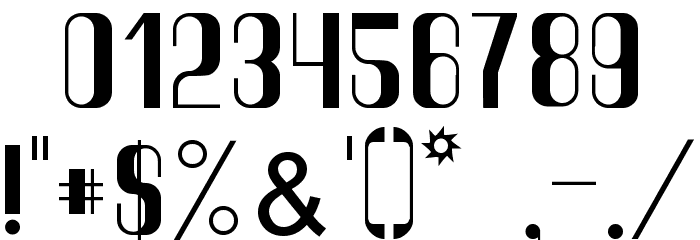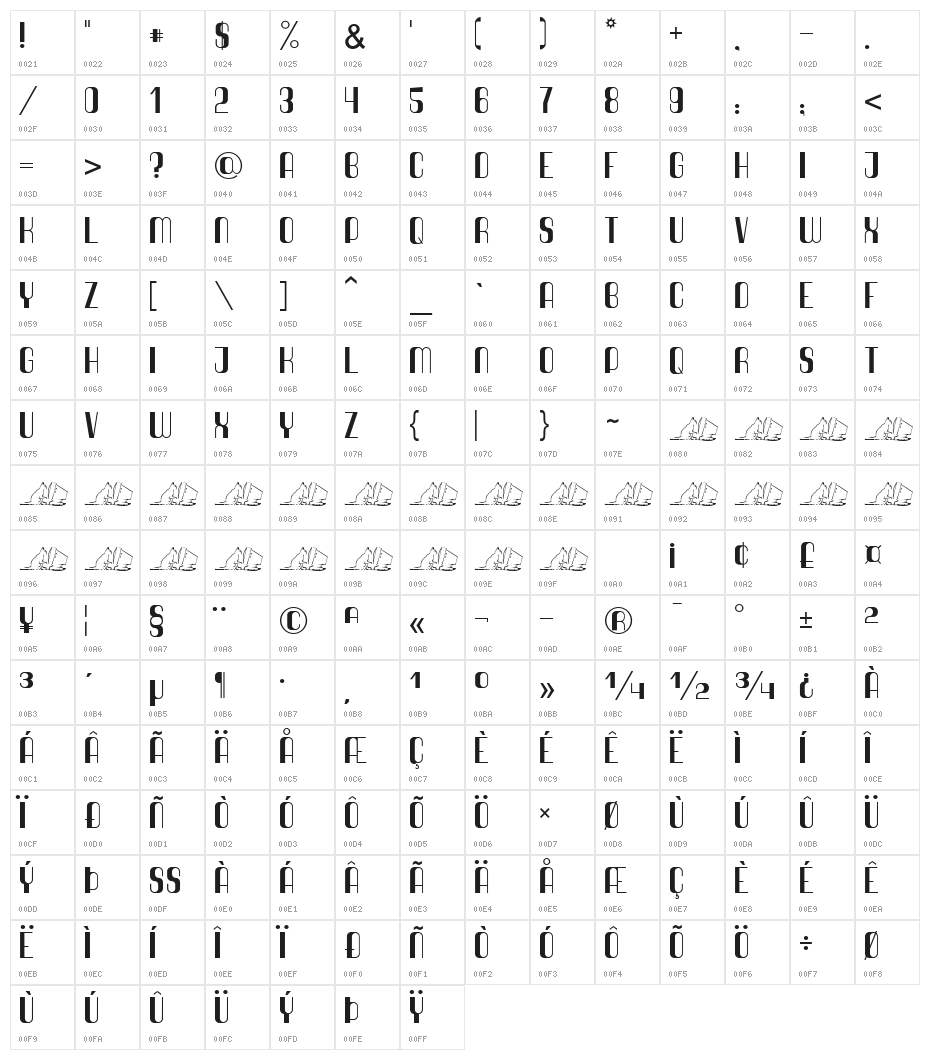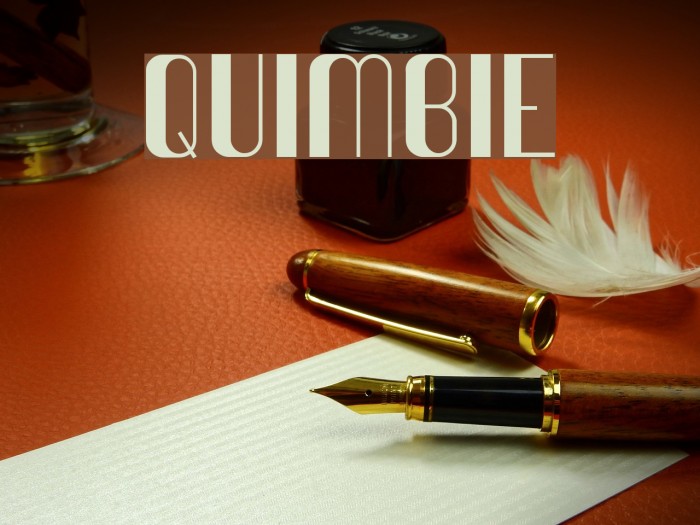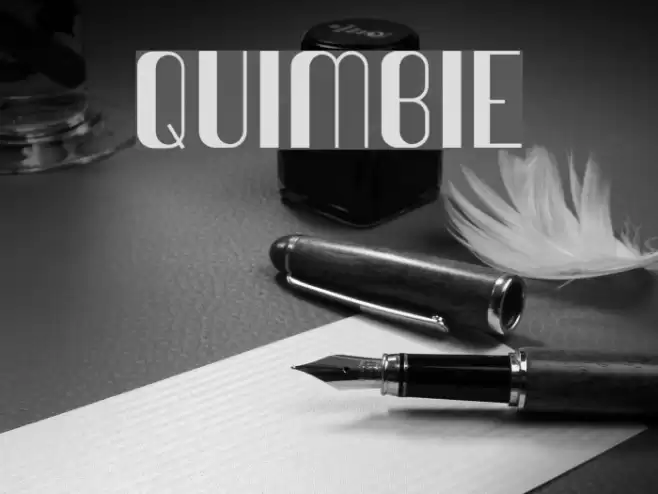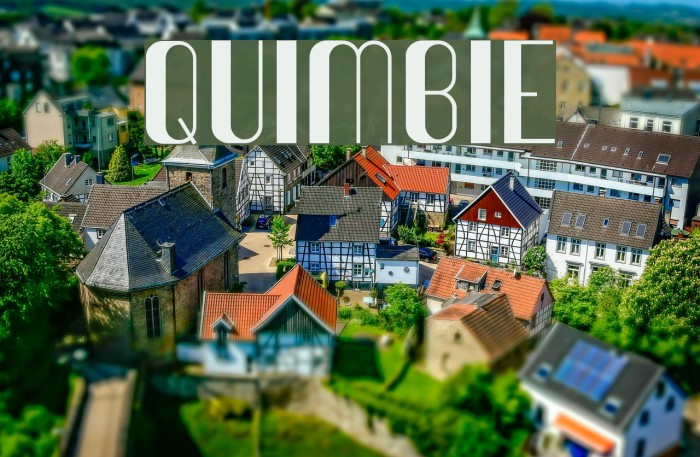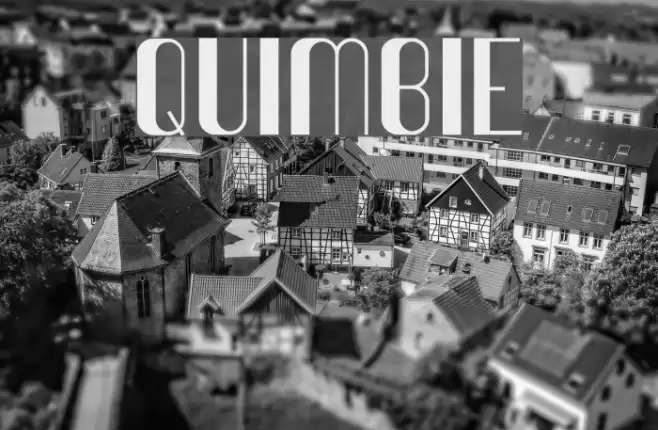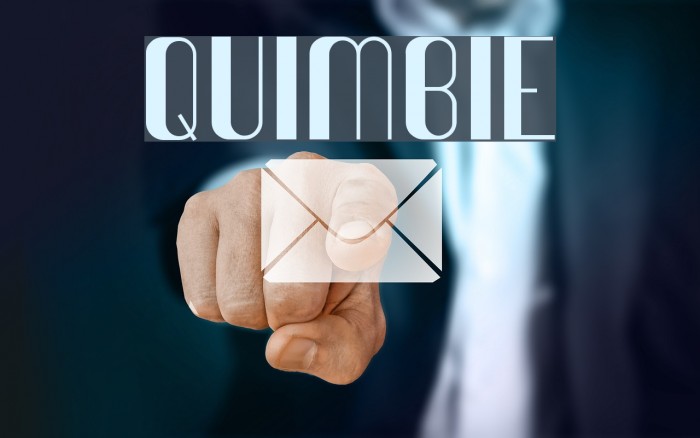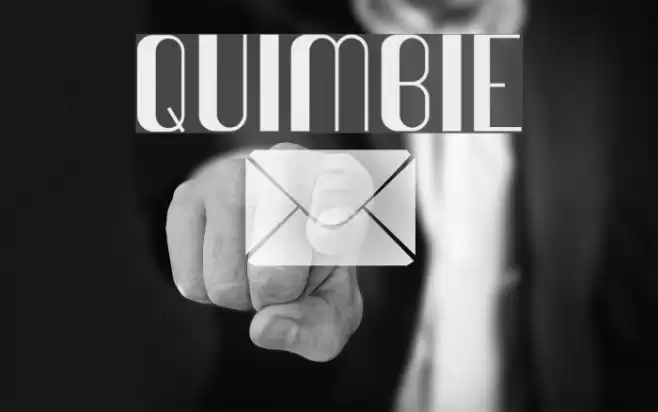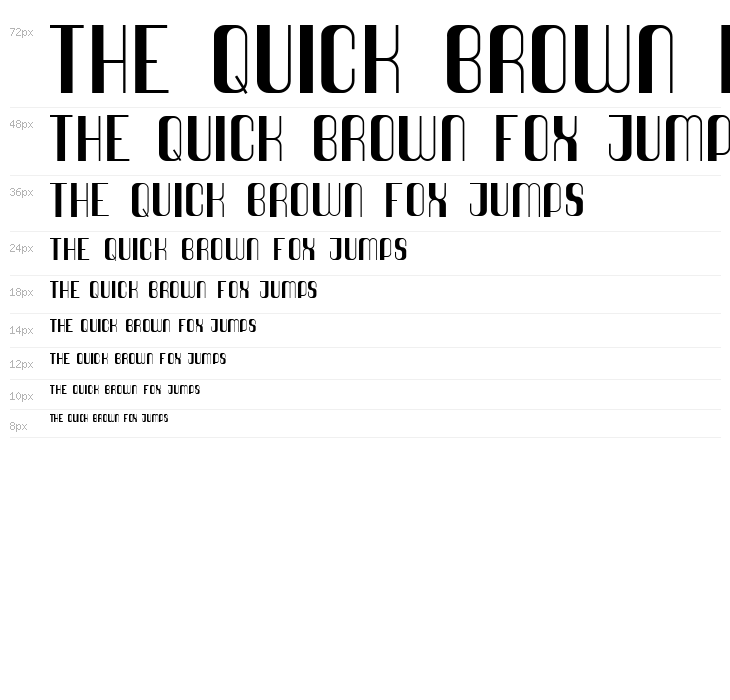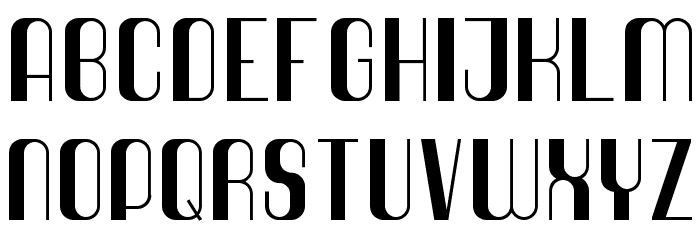
Quimbie Font
Quimbie Description
This font features a modern and stylish design with a distinct geometric influence. The characters are tall and narrow, with a mix of thick and thin strokes that create a striking visual contrast. The uppercase letters have a strong presence, while the lowercase letters maintain a consistent style, enhancing readability. The numerals are bold and clear, making them suitable for various applications. Special characters are uniquely designed, adding a touch of creativity to the overall appearance. This font's clean lines and contemporary aesthetic make it ideal for projects that require a modern and sophisticated look.